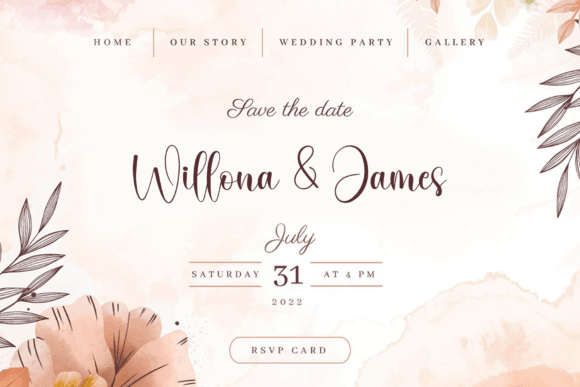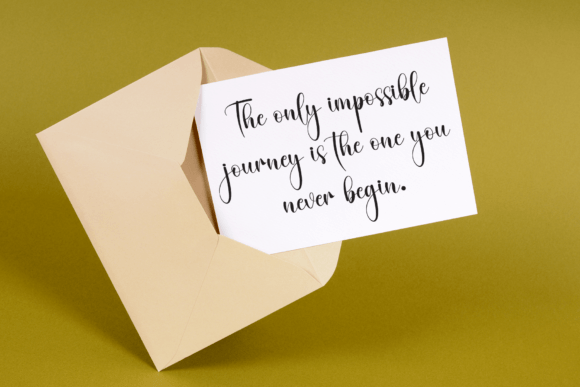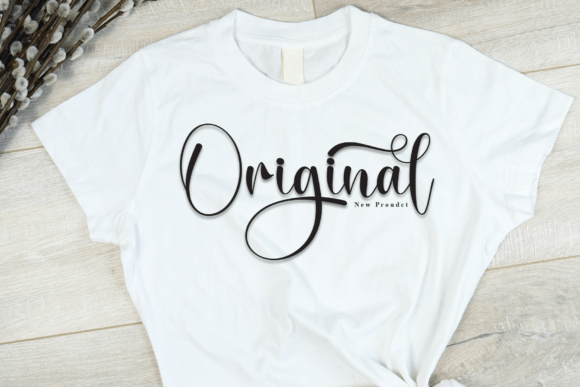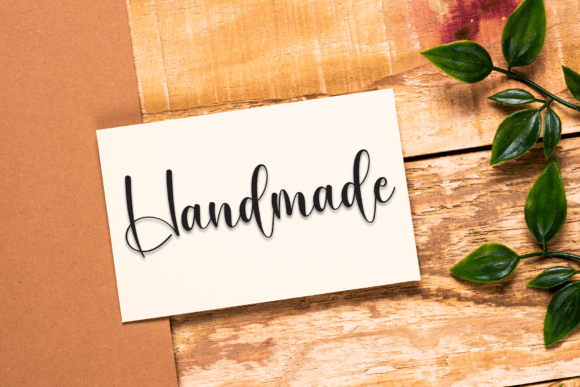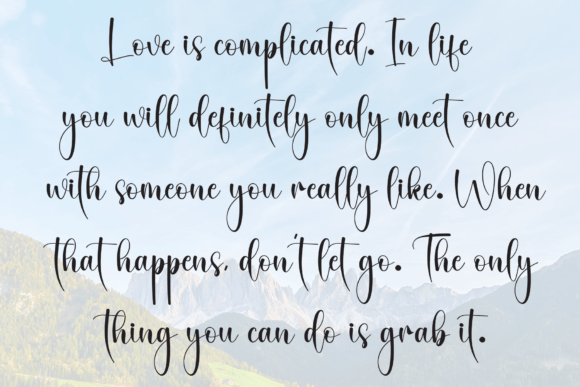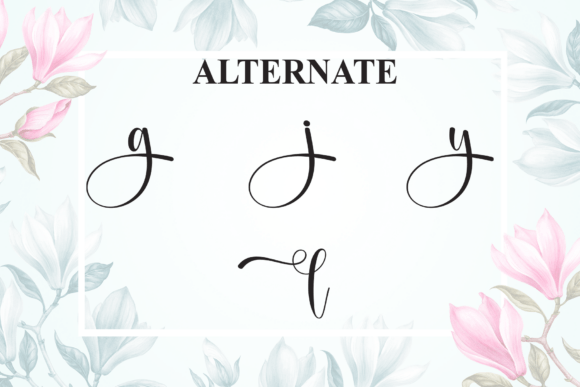
Introducing Angela Font: Elevate Your Creativity with Elegance
Are you a designer, crafter, or DIY enthusiast looking for a font that can add a touch of magic to your projects? Look no further than Angela Font, a beautiful script font designed to bring elegance and sophistication to your creative endeavors. In this article, we’ll explore the features and benefits of Angela Font, and how it can help you turn your ideas into stunning works of art.
What is Angela Font?
Angela Font is a carefully crafted script font that exudes elegance and refinement. With its flowing lines and intricate details, this font is perfect for adding a touch of sophistication to any project. Whether you’re creating social media graphics, crafting DIY projects, or designing marketing materials, Angela Font is the perfect choice.
Key Features of Angela Font
- Magical Script Font: Angela Font is a script font that is designed to add a touch of magic to your projects. Its flowing lines and intricate details make it perfect for creating beautiful and eye-catching designs.
- Elegant and Refined: This font is carefully crafted to exude elegance and refinement, making it perfect for designers and crafters who want to add a touch of sophistication to their projects.
- Versatile: Angela Font can be used for a wide range of projects, from social media graphics to DIY projects, and from marketing materials to craft designs.
Uses for Angela Font
Angela Font is a versatile font that can be used for a wide range of projects, including:
- Instagram Graphics: Add a touch of elegance to your Instagram graphics with Angela Font. Use it to create beautiful quotes, promotions, and more.
- DIY Projects: Use Angela Font to add a personal touch to your DIY projects, such as crafts, scrapbooking, and more.
- Marketing Materials: Add a touch of sophistication to your marketing materials, such as brochures, flyers, and business cards.
- Craft Designs: Use Angela Font to create beautiful craft designs, such as card making, paper crafting, and more.
Benefits of Using Angela Font
There are many benefits to using Angela Font in your projects, including:
- Adds Elegance and Sophistication: Angela Font adds a touch of elegance and sophistication to any project, making it perfect for designers and crafters who want to create beautiful and eye-catching designs.
- Increases Creativity: With Angela Font, you can create unique and creative designs that will set you apart from others.
- Versatile: Angela Font can be used for a wide range of projects, making it a great addition to any design or crafting toolkit.
In conclusion, Angela Font is a beautiful script font that is perfect for designers and crafters who want to add a touch of elegance and sophistication to their projects. With its flowing lines and intricate details, this font is sure to turn any creative idea into a true piece of art. Whether you’re creating social media graphics, crafting DIY projects, or designing marketing materials, Angela Font is the perfect choice.